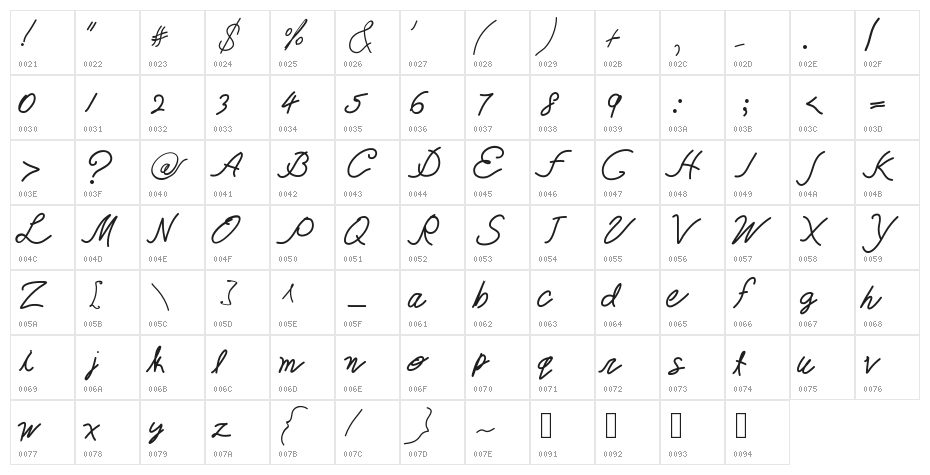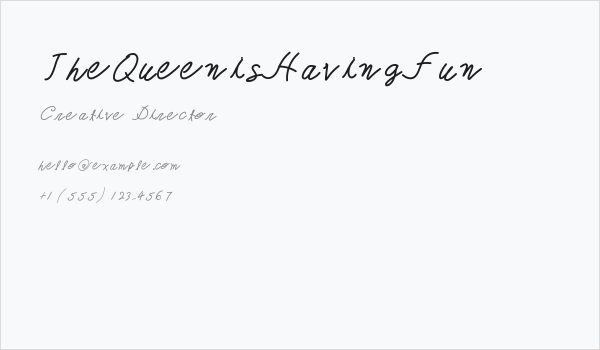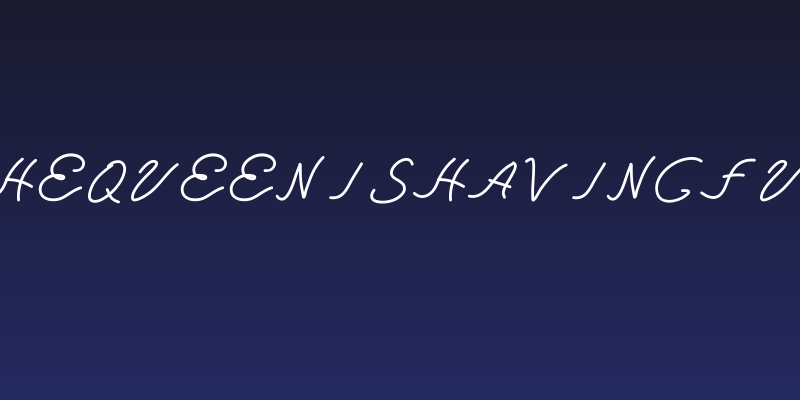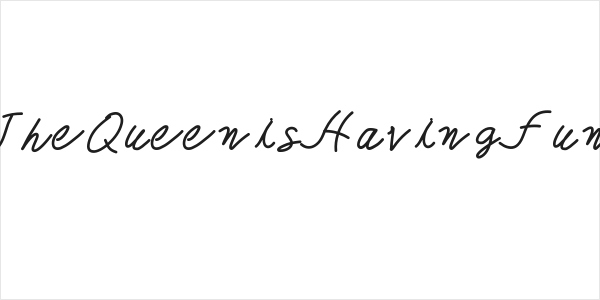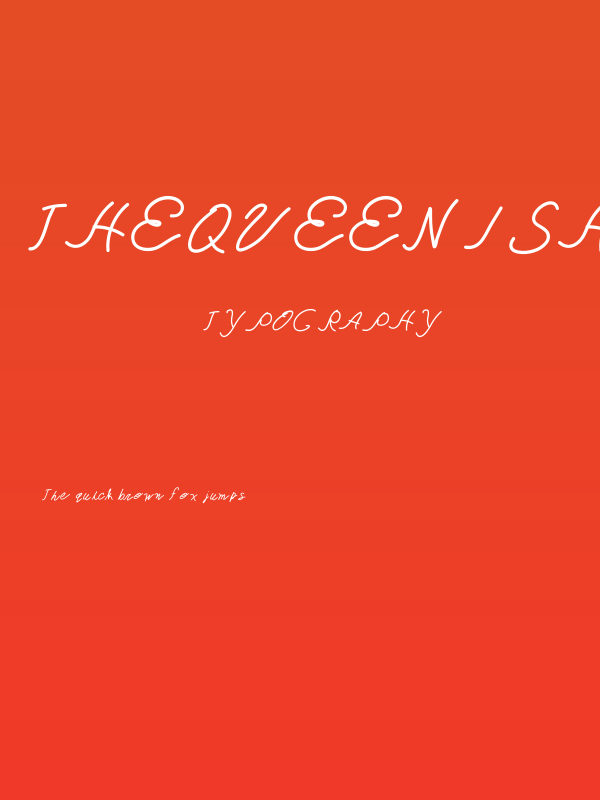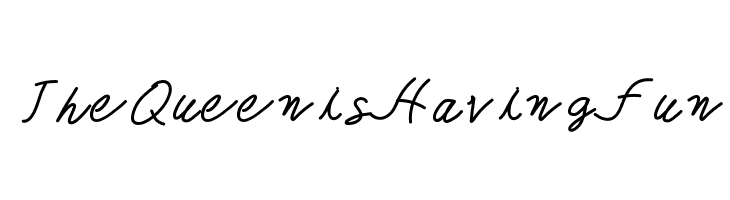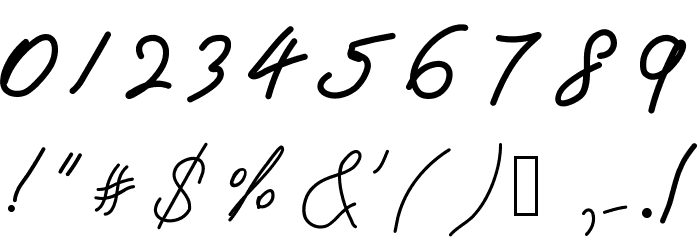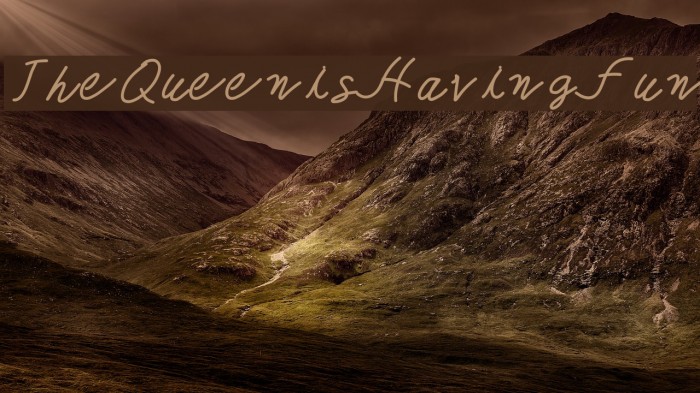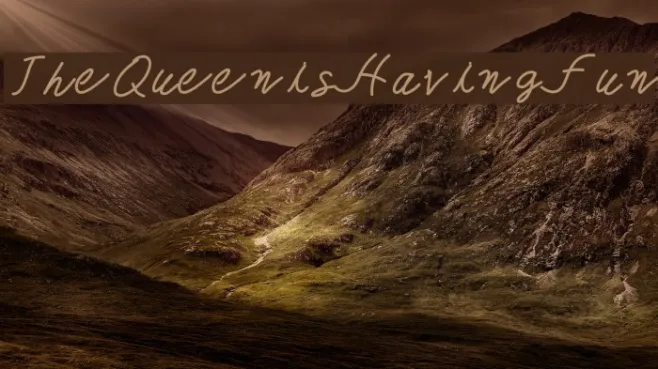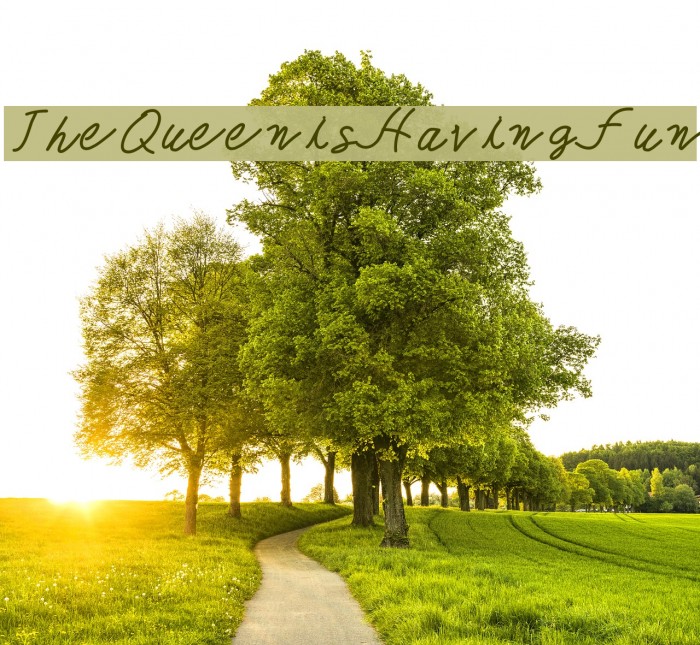
TheQueenisHavingFun Font
TheQueenisHavingFun Description
This font exhibits a flowing, cursive style with a handwritten appearance. The letters are elegantly connected, creating a sense of fluidity and movement. The uppercase letters maintain a consistent height, while the lowercase letters vary slightly, adding a touch of dynamism. The numerals are clear and distinct, matching the overall style of the alphabet. Special characters are creatively integrated, maintaining the cursive theme. The strokes are smooth and continuous, giving the font a sophisticated yet approachable feel.
| Use Case | Invitations, Personal letters, Branding |
| Proposed Projects | Ideal for wedding invitations, personal letters, branding for boutique businesses, or any project requiring a personal touch. |